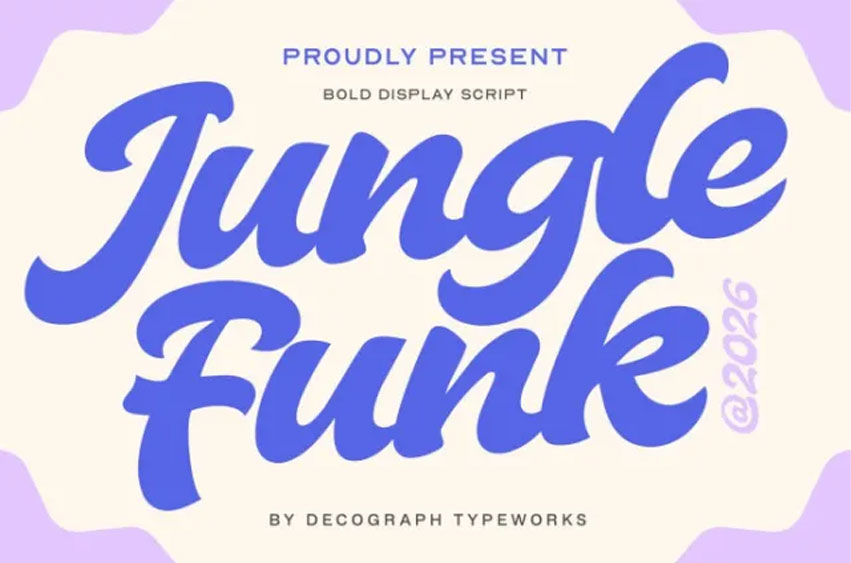
Jungle Funk Font is a soft and friendly typeface designed with bold curves and smooth connections. Its gentle shapes and retro-inspired style create a warm and approachable personality that is playful, elegant, and full of charm. The balanced letterforms give it excellent legibility while maintaining a lively script character.
Ideal for cheerful and eye-catching designs, this font is perfect for creative branding and display projects. Whether used for logos, packaging, posters, or social media graphics, Jungle Funk brings a fun retro vibe with a clean, modern touch.